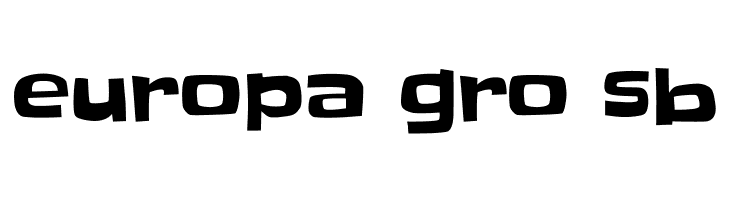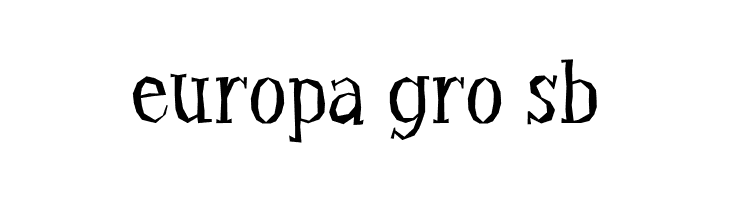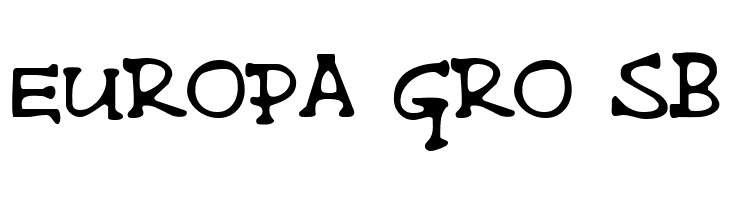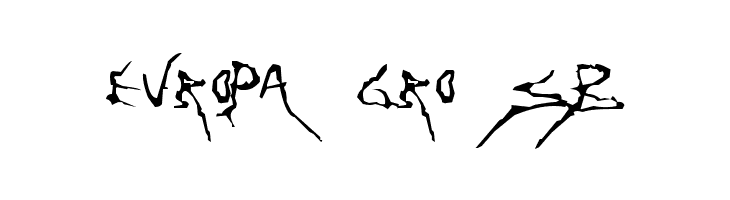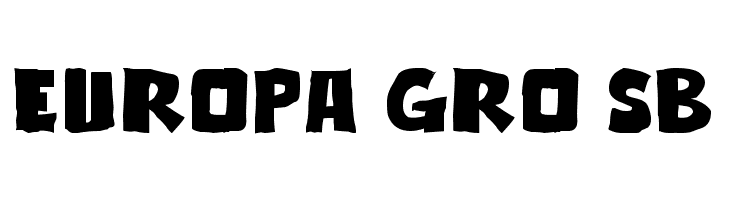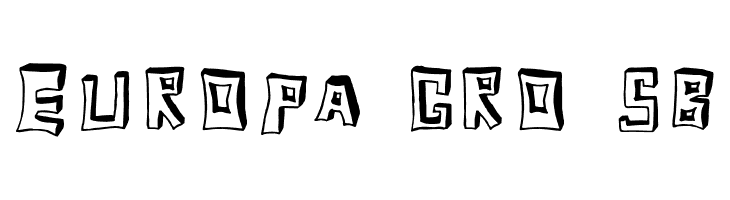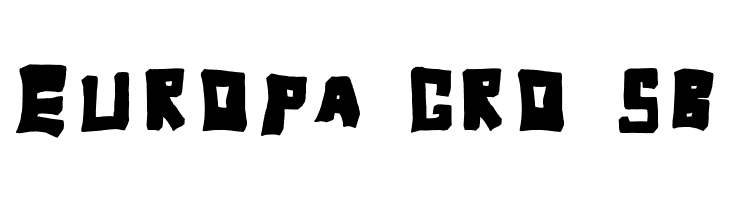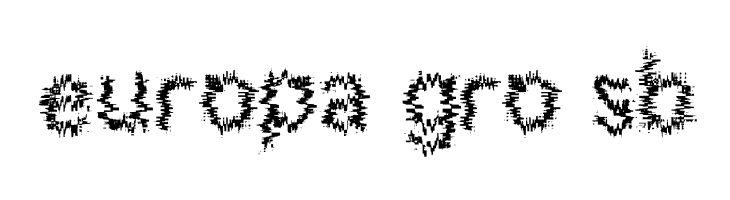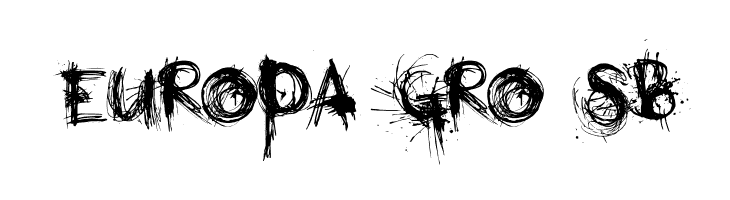
A bold, glitch-effect font with a modern, digital aesthetic.
A playful, bold font with irregular, cartoon-like letterforms.
A quirky, hand-drawn font with playful, uneven strokes and exaggerated serifs.
A playful, hand-drawn font with bold, irregular strokes and a whimsical style.
A chaotic, distressed font with jagged edges and a raw, untamed appearance.
A bold, hand-crafted font with a rugged, artistic style.
A hand-drawn, sketch-like font with bold, uneven strokes and a playful aesthetic.
A bold, rugged font with a hand-drawn, graffiti-like style.
A chaotic, jagged font with a grunge-inspired aesthetic.
A chaotic, distressed font with jagged strokes and splattered ink effects.